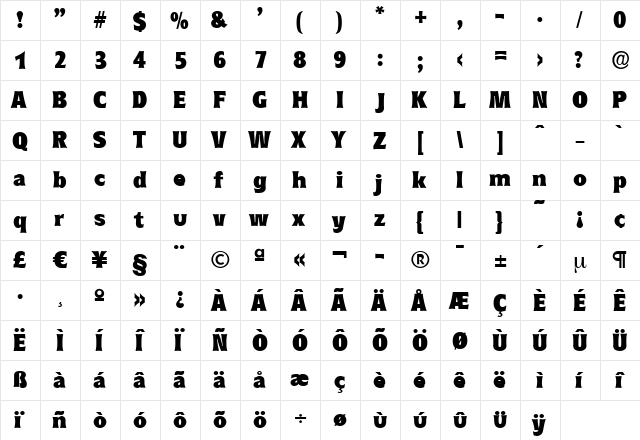
EddieBecker-Heavy Regular
Design Context for EddieBecker-Heavy Typeface
EddieBecker-Heavy takes a measured approach to typography — its balanced proportions and neutral character make it a reliable workhorse for both digital and print work.